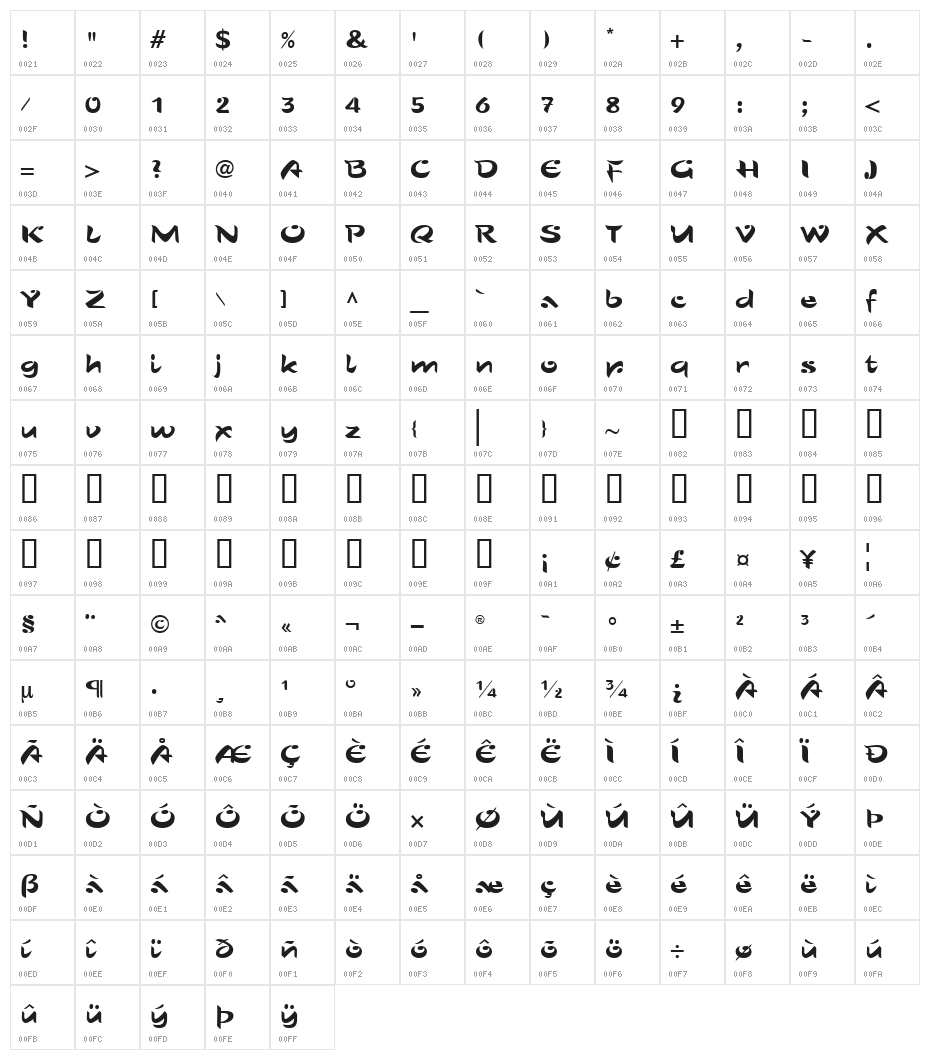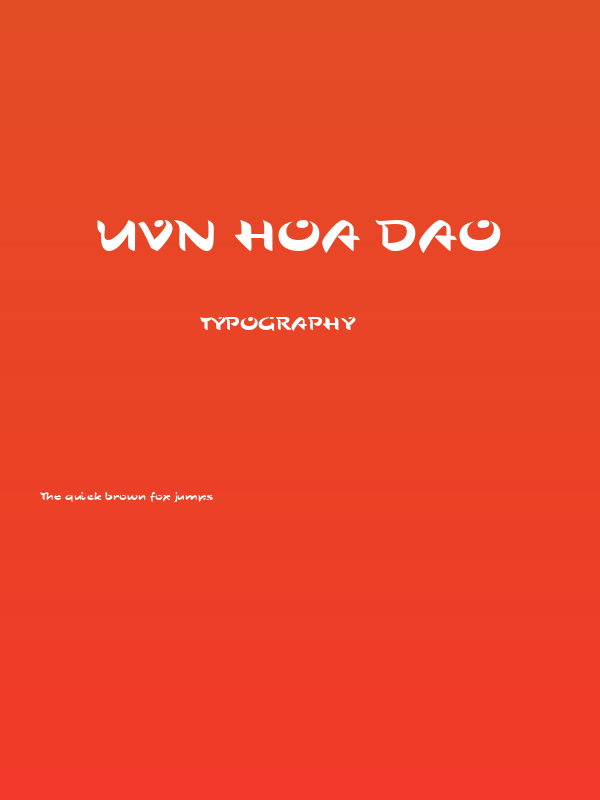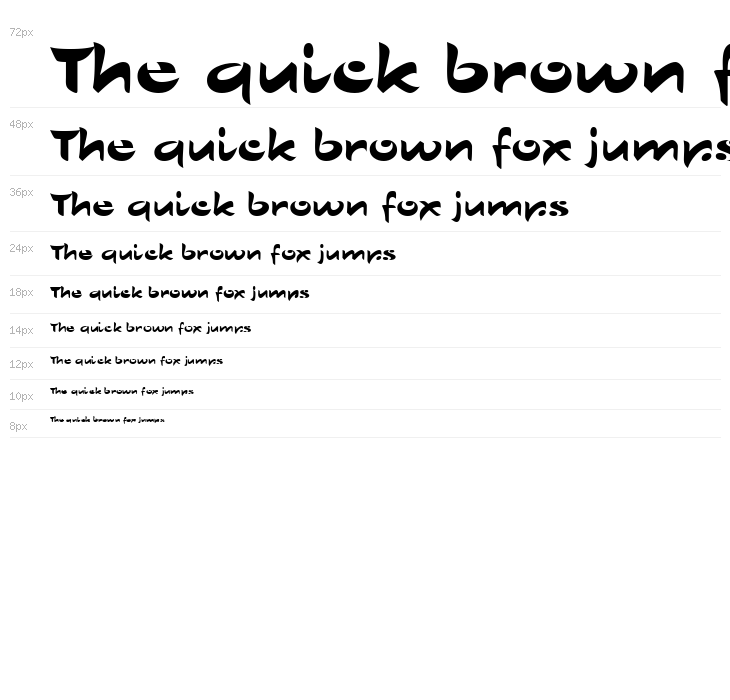
UVN Hoa Dao Font
UVN Hoa Dao Description
This font features a bold and dynamic style with a strong presence, characterized by its thick strokes and unique, angular design. The uppercase letters are particularly striking, with sharp edges and a slightly futuristic appearance. The lowercase letters maintain the same boldness, offering a consistent look throughout. Numbers and special characters are equally bold, ensuring readability and impact. The overall design suggests a modern and decorative style, suitable for projects that require a distinctive and eye-catching typeface.
Overall StyleModern, Decorative
Proposed ProjectsIdeal for branding, posters, headlines, and any design work that requires a bold and unique typeface.